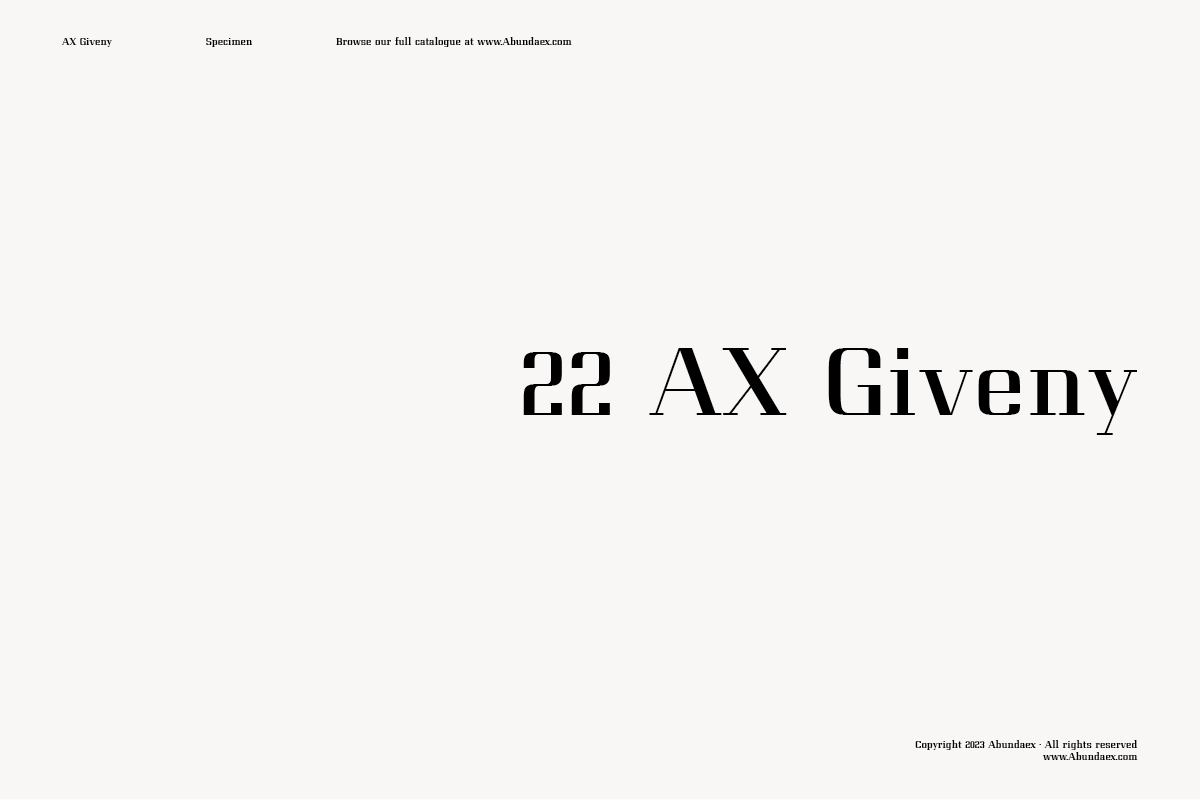
Giveny Stylish Font Free Download
Giveny Stylish Font Free Download is a modern and elegant serif typeface designed to elevate your projects with a touch of luxury and refinement. With its sleek lines, delicate curves, and high-contrast strokes, Giveny is perfect for fashion branding, editorial layouts, wedding invitations, upscale packaging, and sophisticated logos.
This typeface radiates class and modern femininity, making it a go-to choice for designs that require style, confidence, and timeless appeal. Its clean structure ensures readability while delivering a bold visual statement.